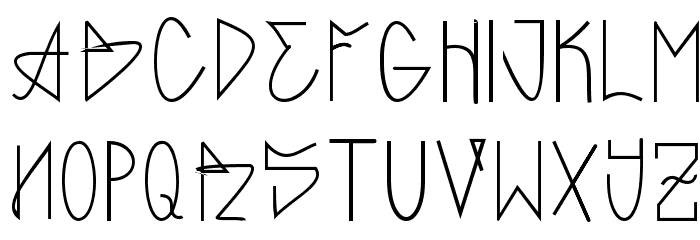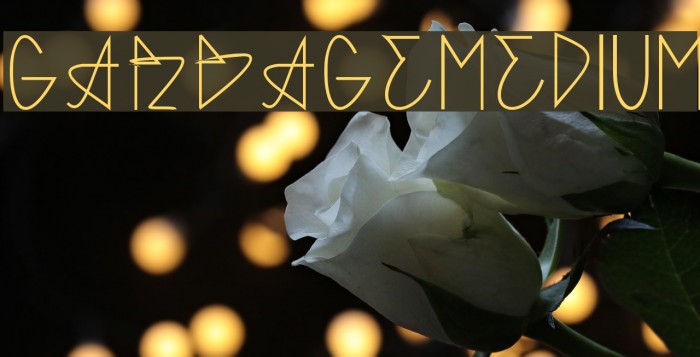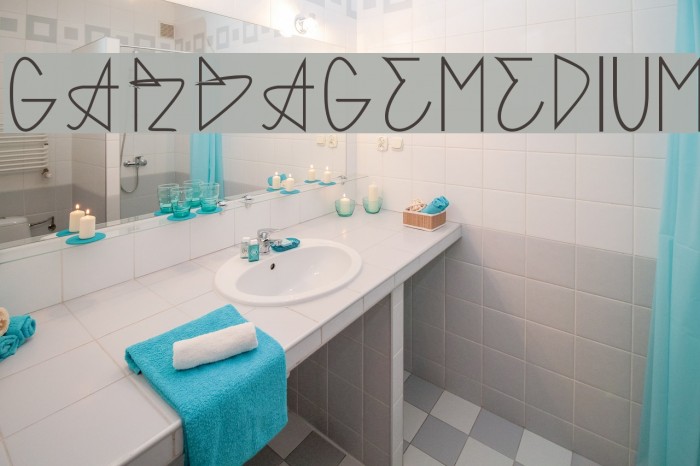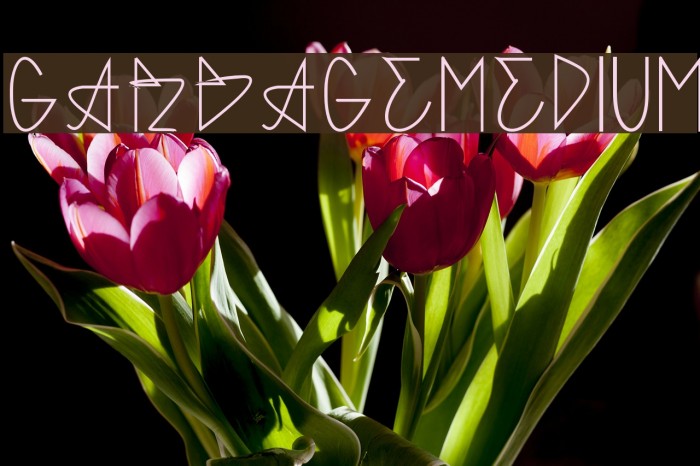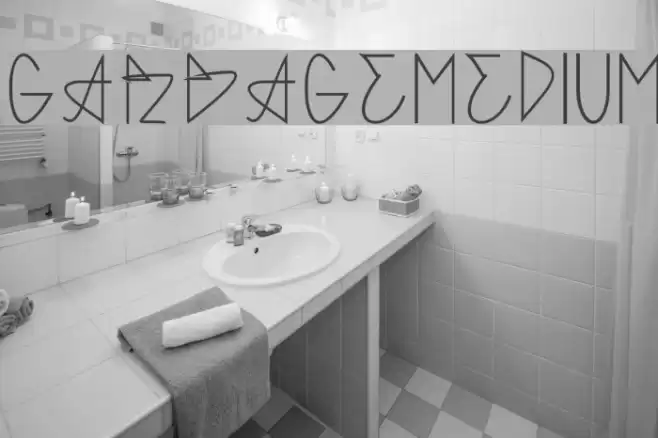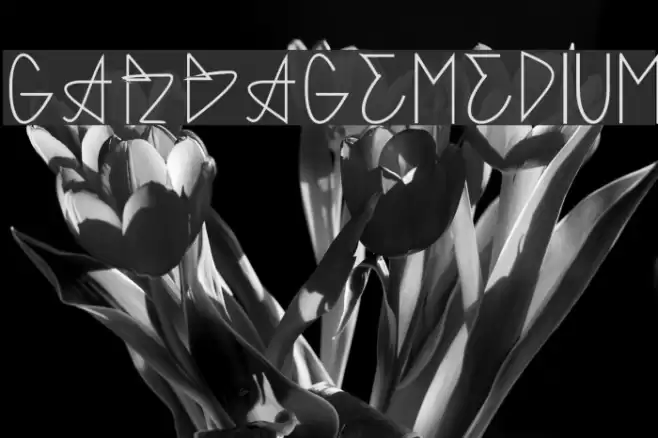
GARBAGE MEDIUM Font
This font features a unique and artistic design with a modern twist. The uppercase letters are characterized by sharp angles and geometric shapes, giving them a futuristic and edgy appearance. The lowercase letters maintain a similar style, with a consistent angular theme that adds to the overall cohesiveness of the font. The numbers are designed with a boxy, structured look, enhancing the modern aesthetic. Special characters are creatively integrated, maintaining the font's distinctive style. This font is ideal for projects that require a bold, contemporary look with a touch of creativity.
A modern, angular font with a futuristic and artistic design.
- Proposed Projects: Ideal for branding, posters, album covers, and digital artwork.